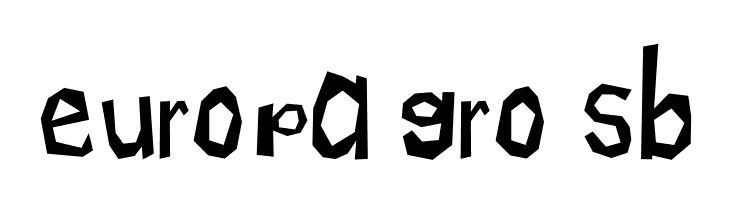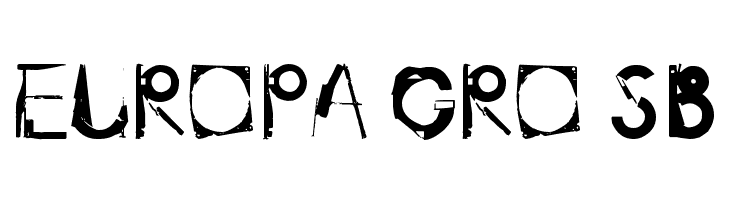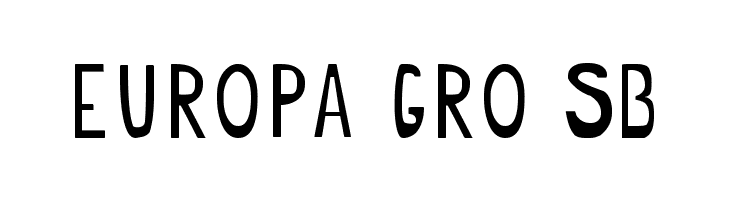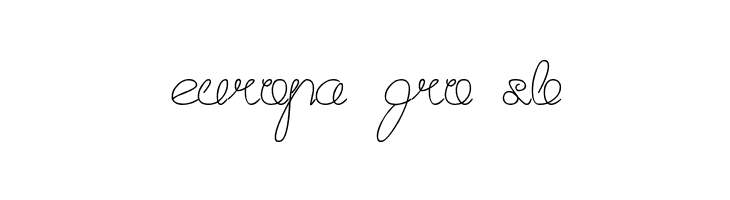
A graceful script font with flowing, cursive strokes and a refined appearance.
A bold, hand-drawn font with a rough, textured appearance and dynamic style.
A playful, bold font with a hand-drawn, whimsical style.
A futuristic, bold font with sharp angles and a digital aesthetic.
A modern, rounded font with a playful and geometric style.